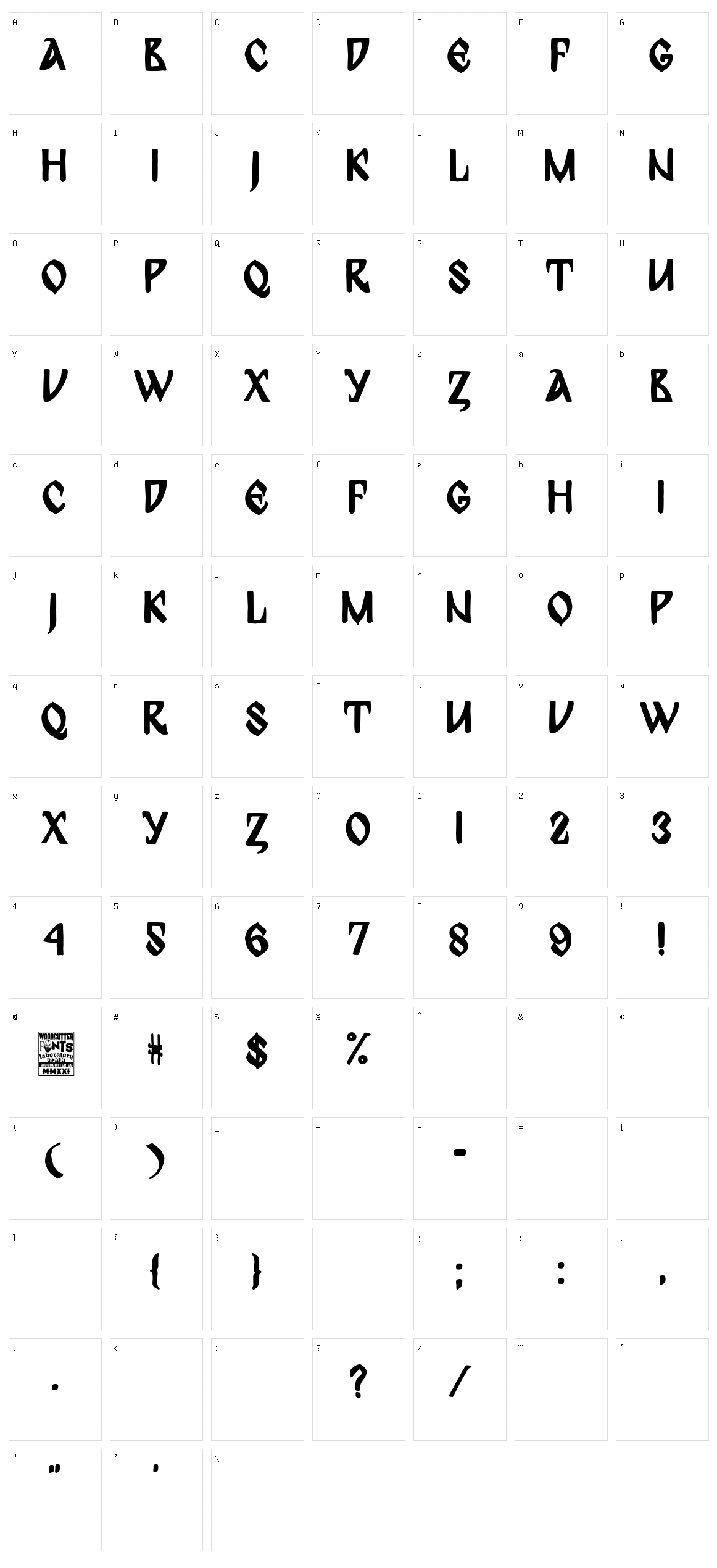
The free font Bulgarian Bridge is carefully designed by Woodcutter, showcasing a thoughtful balance of creativity and usability and belongs to the Gothic font family. When you download the ZIP file, it contains only 43.82 KB of font files, making it lightweight and quick to download. Please review the license details below to understand permitted usage and distribution rights. If license information is not available, we recommend using this font for personal projects only or contacting the author directly for commercial usage permissions.